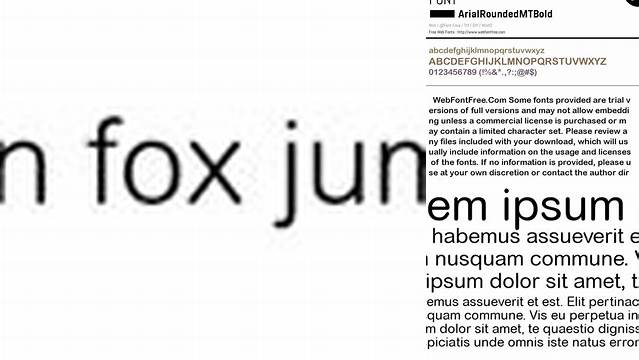
Arial Rounded MT Google Fonts: Usage & Design Guide
Arial Rounded MT is a popular and versatile sans-serif typeface that has been widely used in various design projects. Its clean lines and rounded terminals give it a friendly and approachable appearance, making it a great choice for both headings and body text. If you're looking to enhance your project's typography, understanding the nuances of Google Fonts Arial Rounded MT is crucial. This article dives deep into its characteristics, usage, and how to effectively implement it in your designs.
What is Arial Rounded MT?
Arial Rounded MT is a variation of the classic Arial typeface, characterized by its rounded terminals. This simple modification gives the font a softer, more modern feel compared to the original Arial, which has sharp, straight edges. The rounded edges make it appear less formal and more approachable, suitable for a wide range of applications, from website interfaces to print materials.
The History and Evolution
To fully appreciate Arial Rounded MT, it's essential to understand its lineage. Arial itself was developed by Monotype in 1982 as a competitor to Helvetica. Over time, variations like Arial Rounded MT emerged to cater to different design needs. Arial Rounded MT specifically became popular for its friendlier aesthetic, finding its place in logos, branding, and user interfaces where a softer touch was desired. The font carries the inherent legibility of Arial but adds a touch of warmth, making it a versatile choice for designers.
Key Characteristics of Arial Rounded MT
Arial Rounded MT distinguishes itself through several key characteristics. First and foremost, the rounded terminals are the defining feature, giving the font its name and unique appearance. These rounded edges contribute to its softer, more approachable feel. The typeface also boasts excellent legibility, thanks to its clear letterforms and generous spacing. Its uniform stroke weight ensures consistency across characters, making it easy to read in both large and small sizes. Furthermore, Arial Rounded MT's wide character set supports various languages, making it a globally accessible font choice. Its versatility in different contexts stems from its simple design yet unique style, making it suitable for everything from website headers to body text in brochures.
Why Choose Arial Rounded MT?
Designers often gravitate towards Arial Rounded MT for its blend of readability and aesthetics. It's a solid choice when you need a font that is both legible and visually appealing, without being overly stylized. The rounded terminals impart a sense of friendliness and modernity, making it suitable for brands aiming to project a welcoming image. Its neutrality also makes it a safe bet for projects where the typography shouldn't overshadow the content. Whether you're designing a website, creating marketing materials, or working on a user interface, Arial Rounded MT offers a reliable and attractive option. Plus, its availability within Google Fonts means it's easily accessible for web projects, ensuring consistent rendering across different platforms and browsers. Using this font can help create a cohesive and visually appealing design, enhancing the user experience and brand perception.
Embedding Arial Rounded MT on Your Website
Google Fonts offers two primary methods for embedding fonts: via <link>
tags in your HTML or using the @import
rule in your CSS. The <link>
method is generally recommended for better performance. Copy the provided <link>
tags and paste them into the <head>
section of your HTML document. This tells the browser to download the font files from Google's servers. Alternatively, you can use the @import
rule by copying the provided CSS code and pasting it at the beginning of your stylesheet. After embedding the font, you can apply it to your text elements using CSS. For example, font-family: 'Arial Rounded MT';
will set the font for the selected elements. Proper embedding ensures that the font is displayed correctly across different browsers and devices.
Best Practices for Using Arial Rounded MT in Web Design
While Arial Rounded MT is versatile, using it effectively requires some best practices. First, consider the font weights. Using too many weights can slow down your website, so stick to the ones you truly need. Regular and Bold are often sufficient for most designs. Second, pay attention to font size and line height. Ensure that your text is legible by choosing an appropriate font size and line height for your body text. A good rule of thumb is to use a line height that is 1.5 times the font size. Third, think about contrast. Ensure there's enough contrast between your text and background colors for readability. Light text on a dark background or vice versa often works well. Finally, test your font across different devices and browsers to ensure it renders correctly. Following these practices will help you create a website that is both visually appealing and user-friendly. Utilizing best practices ensures optimal readability and visual harmony.
Design Applications of Arial Rounded MT
Arial Rounded MT shines in various design applications, thanks to its blend of readability and modern aesthetics. From logos to user interfaces, this font can adapt to different contexts while maintaining a consistent and appealing look. Understanding its strengths in these areas will help you leverage it effectively in your projects.
Arial Rounded MT is a versatile and reliable font that can enhance various design projects. Its rounded terminals give it a friendly and modern appearance, making it a great choice for logos, web design, print materials, and more. Understanding its characteristics, usage in Google Fonts, and suitable alternatives will help you make informed decisions and create visually appealing designs. Whether you're a seasoned designer or just starting, mastering Arial Rounded MT is a valuable skill in typography. So go ahead, experiment with this font and see how it can elevate your next project! Embrace the power of typography and let Arial Rounded MT be a part of your design toolkit.